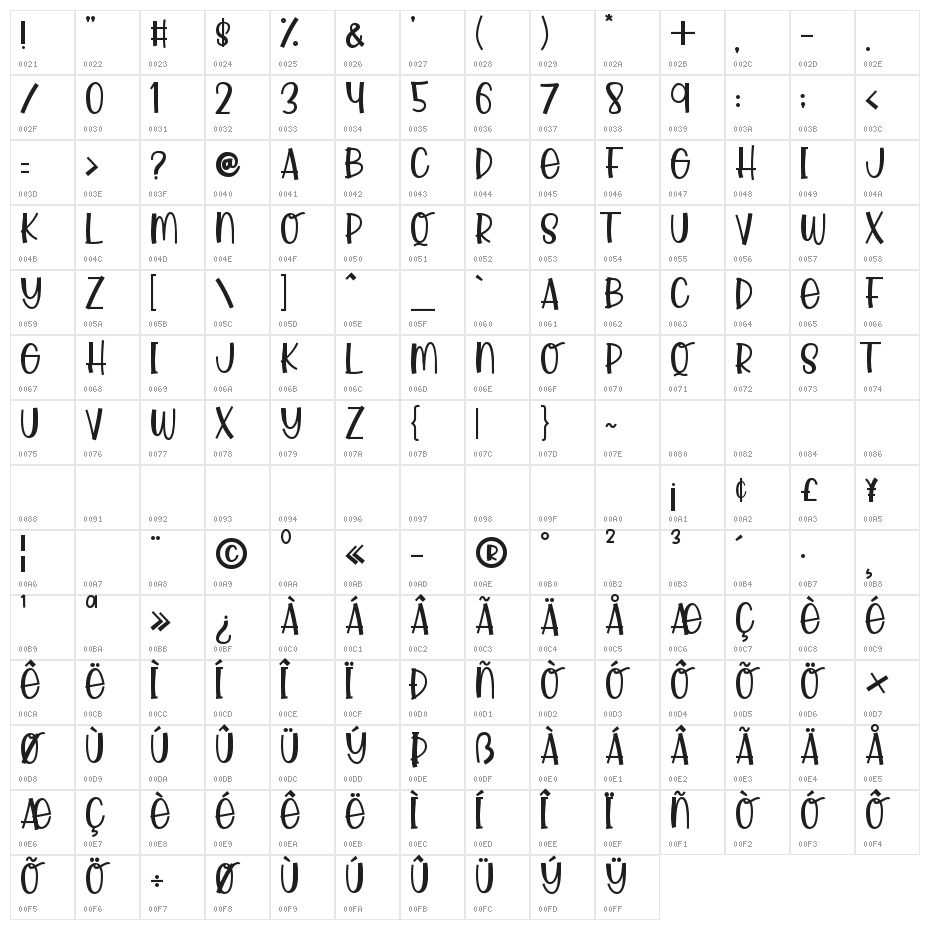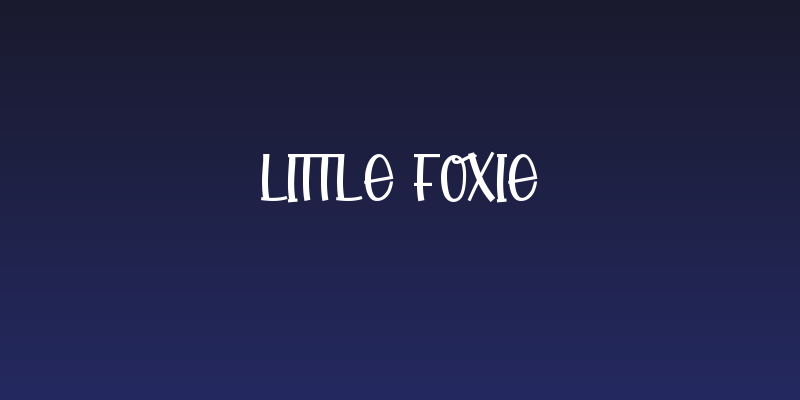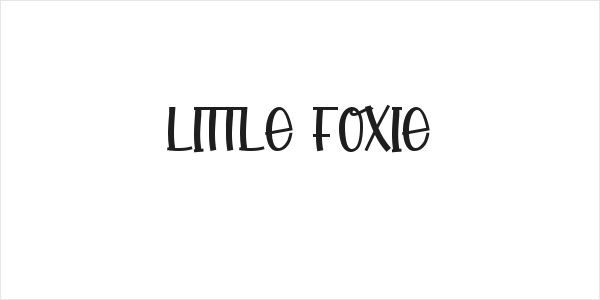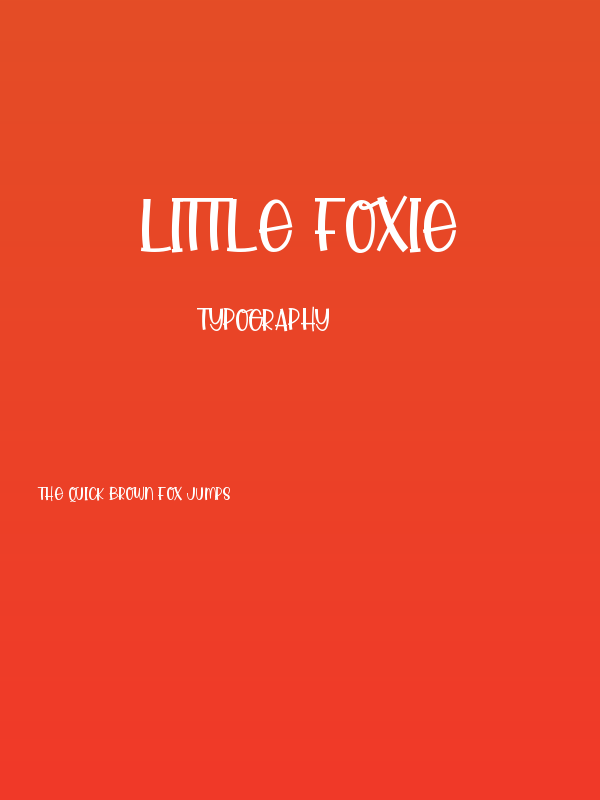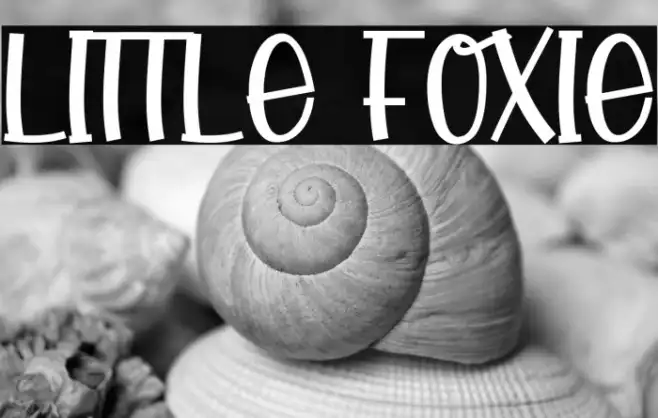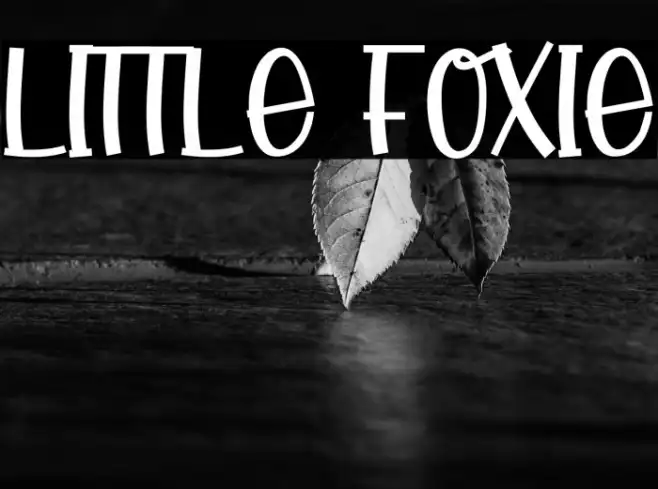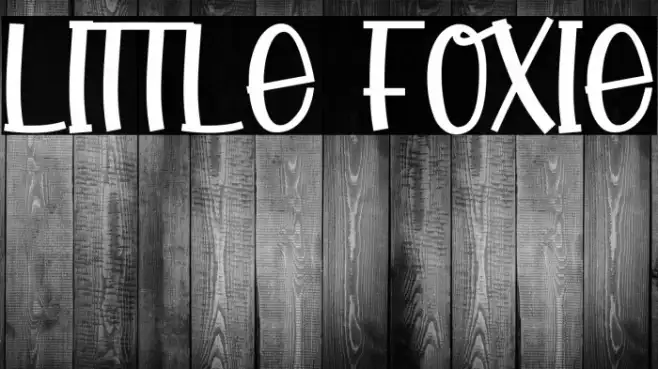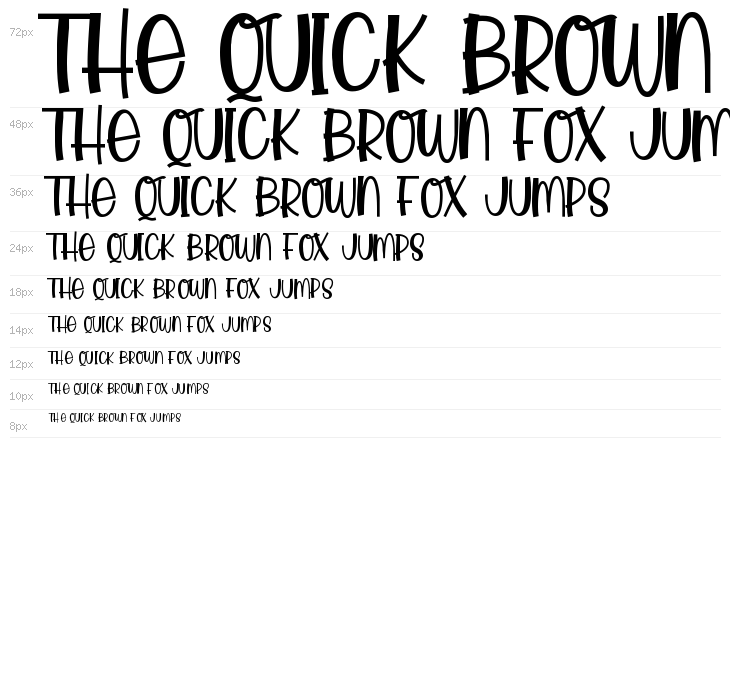
Little Foxie Font
Little Foxie Description
This playful and whimsical font features a handwritten style with a lively and energetic appearance. The characters are slightly tilted, giving a sense of movement and fun. The strokes are bold and consistent, with rounded edges that add a friendly and approachable feel. The uppercase and lowercase letters maintain a cohesive style, while the numerals and special characters complement the overall design. This font is perfect for projects that require a touch of creativity and personality.
| Proposed Projects | Ideal for children's books, playful branding, greeting cards, and creative posters. |